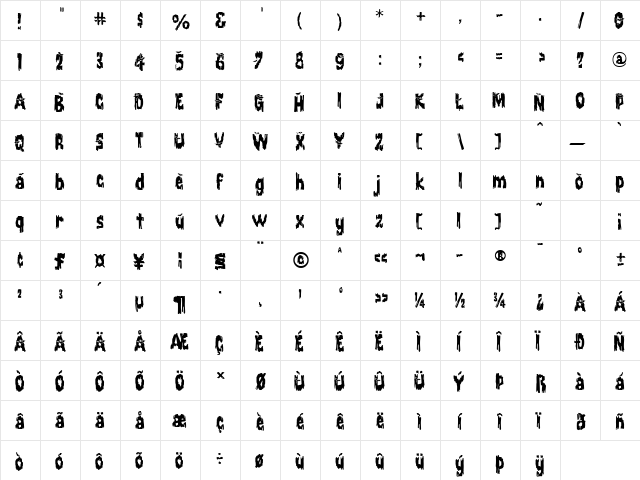
IPCHalloween Regular
Design Context for IPCHalloween Typeface
IPCHalloween is a composed and adaptable typeface that performs quietly and consistently across a wide range of design contexts.